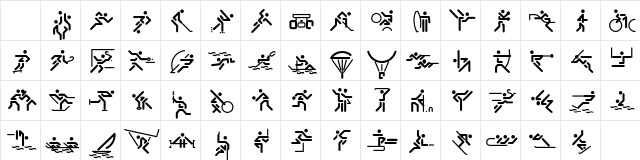
Complete Tips LT Std Active glyph index. Displaying only characters natively supported by Tips LT Std Active font.
Tips LT Std is a composed and adaptable typeface that performs quietly and consistently across a wide range of design contexts. Its slender proportions lend an understated elegance to any composition.
Who designed the Tips LT Std Active font?